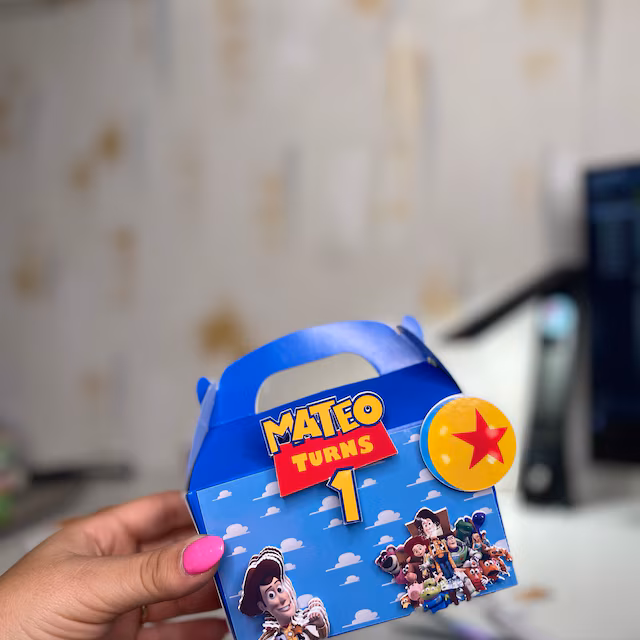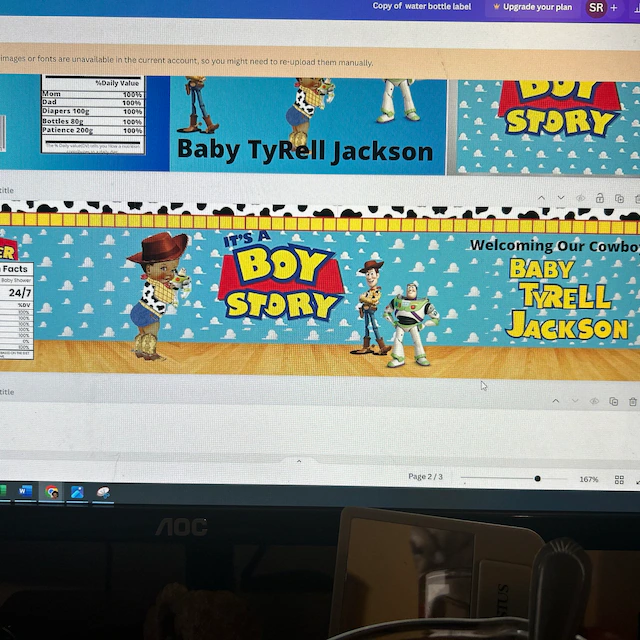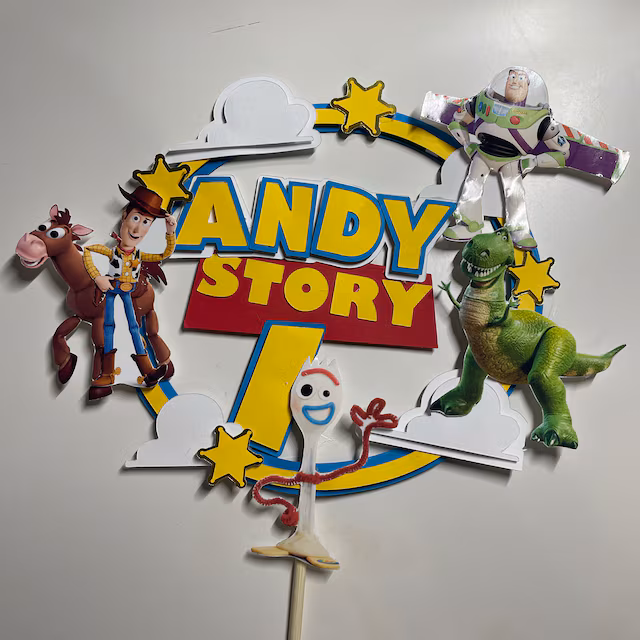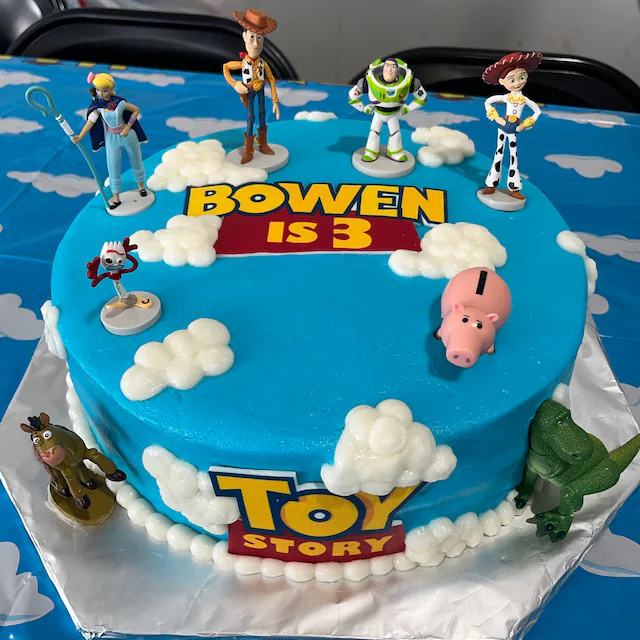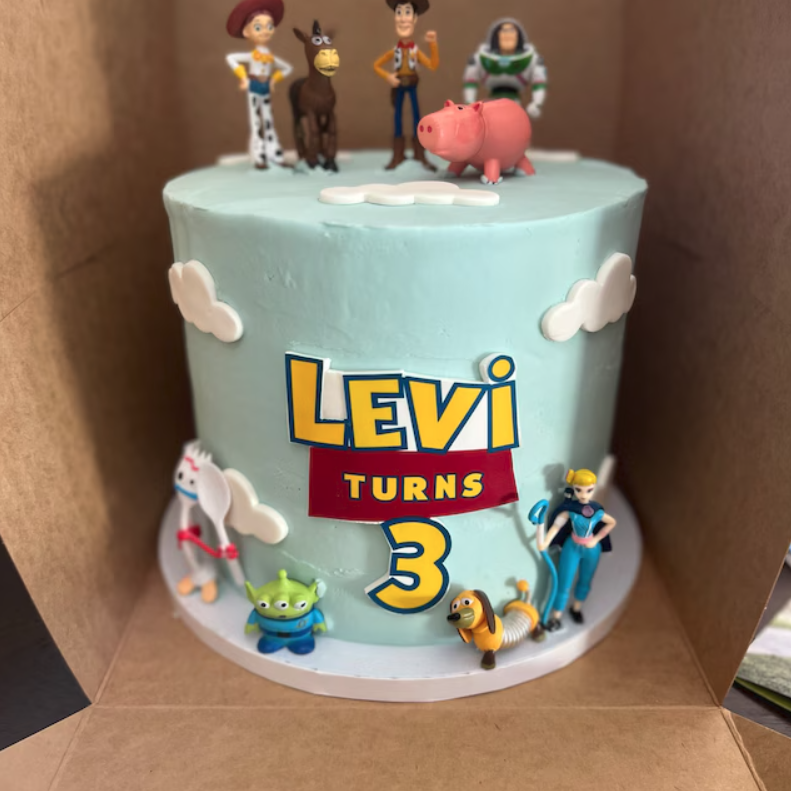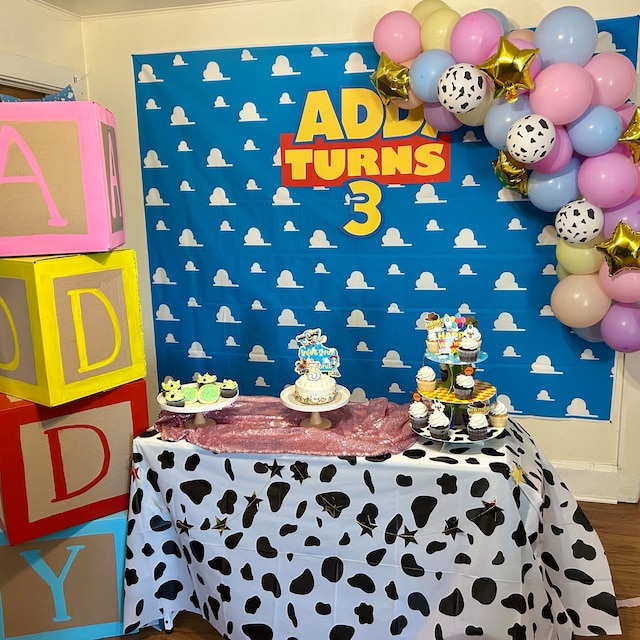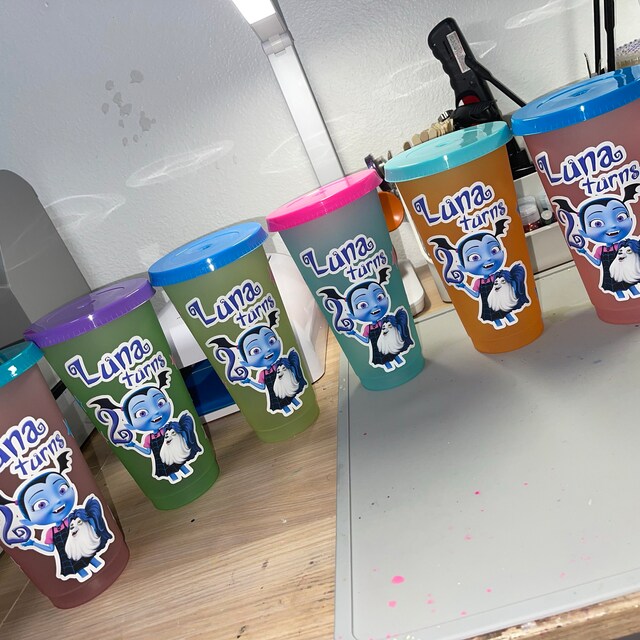
I received many requests about Disney fonts, so here’s a fantastic custom-made Disney font bundle including 8 Disney fonts. I selected the most popular theme from Disney. This year’s new addition is the font from the movie “Turning Red.” That movie is viral this year; I bet kids will want to have their name from it. In the images above, I used the name Emma as an example to see how it would look like with a name and age.
If you have kids and you are like me, you know how it’s a challenge to find a theme for their birthday. Everything must match. The party decoration, the cake, the balloon, everything. And I like creating something custom for my daughter, like having her name with the Troll font for the cake topper. That makes a unique craft, and it looks so realistic. I like it so much.
Another thing I noticed after working with the Cricut machine and people around is that most Cricut crafters prefer to use SVG files instead of typing using the keyboard. The reason is that we tend to have more freedom in the design by uploading SVG files because the letters are not stuck altogether. That way, we can play with the characters and end up with a design we really like.
Therefore, I focused on releasing SVG files of Disney fonts. I hope you find it more convenient.
The Premium Disney fonts include an SVG image of the alphabet for each Disney character. Some even include extra illustrations in PNG files.